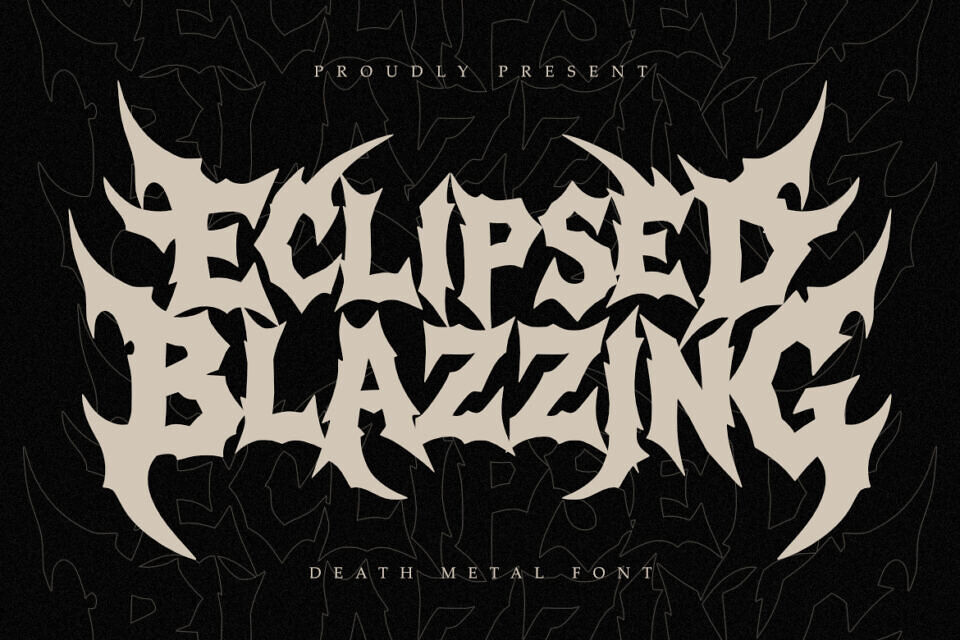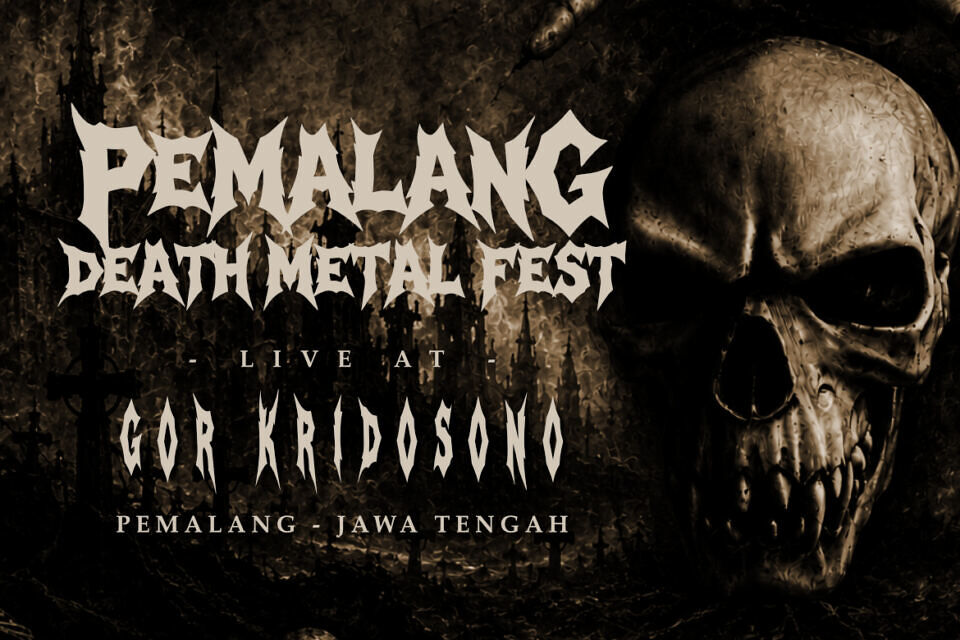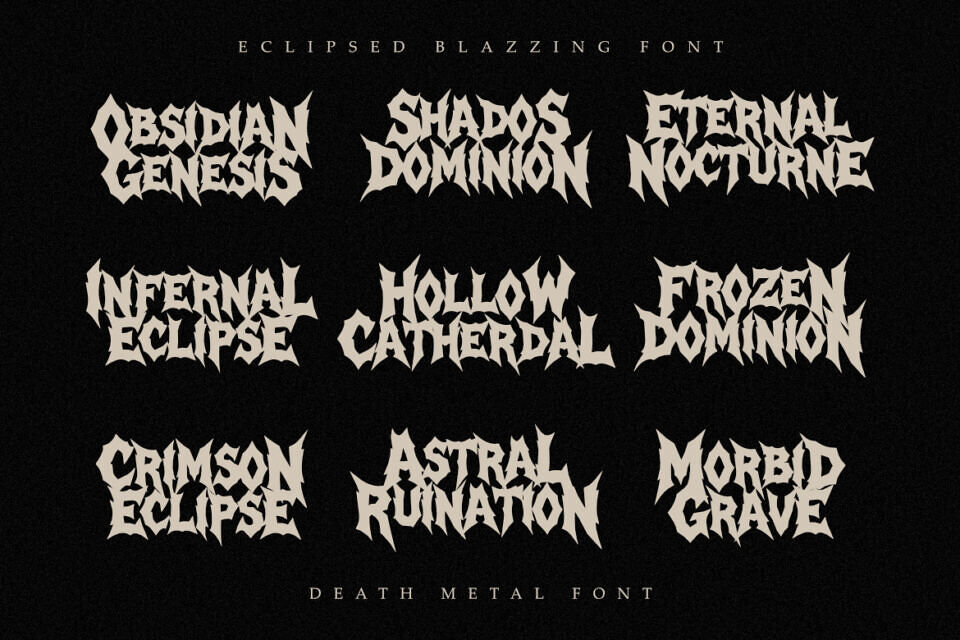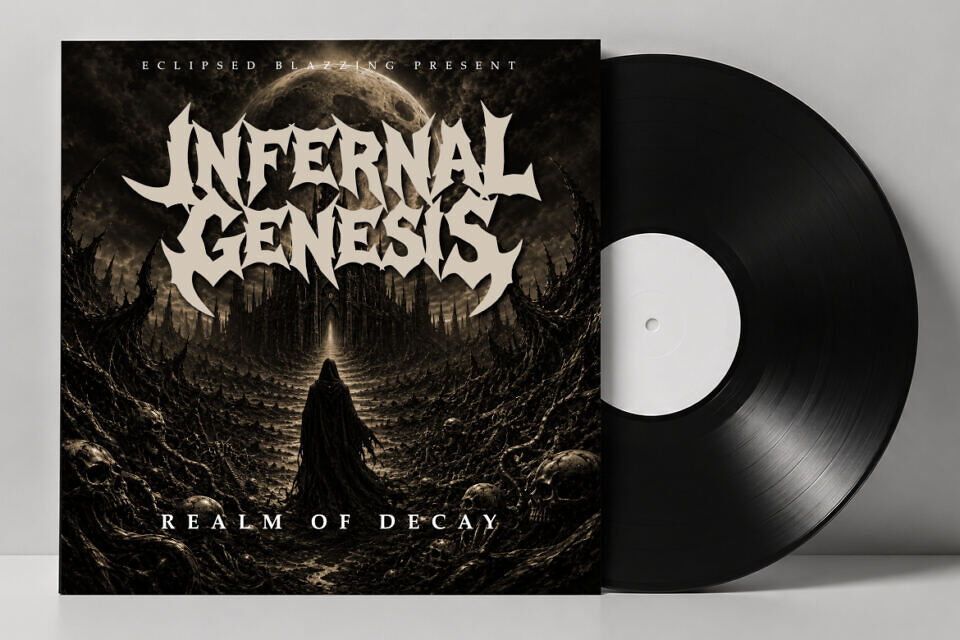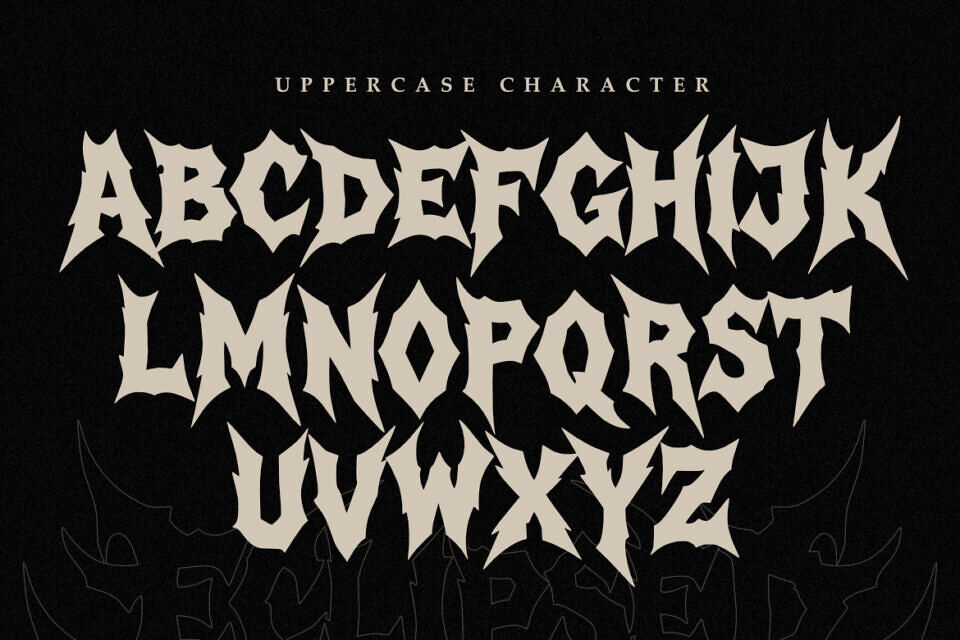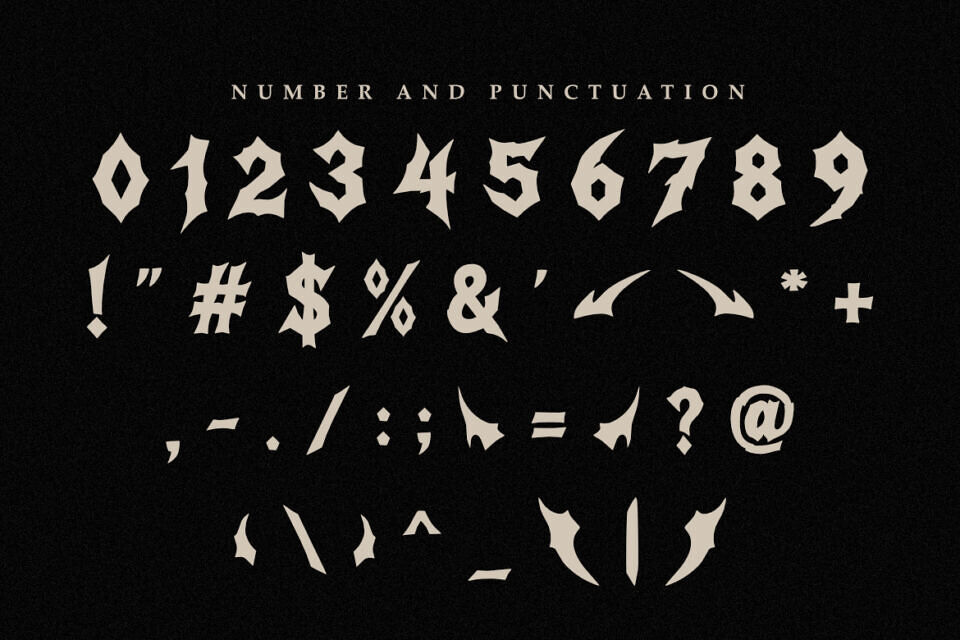
Eclipsed Blazzing is a brutal professional font designed for sophisticated branding and high-end extreme design projects. Its sharp and aggressive letterforms provide a contemporary yet timeless feel, striking a perfect balance between solid structural lines and modern metal aesthetics.
Inspired by the vibrant energy of the underground scene and heavy dark typography, Eclipsed Blazzing offers versatility and adaptability for various design applications,. Whether you are crafting a corporate identity for an extreme label, designing sleek business cards for a tattoo studio, or working on editorial content, this font ensures your work exudes professionalism and style.